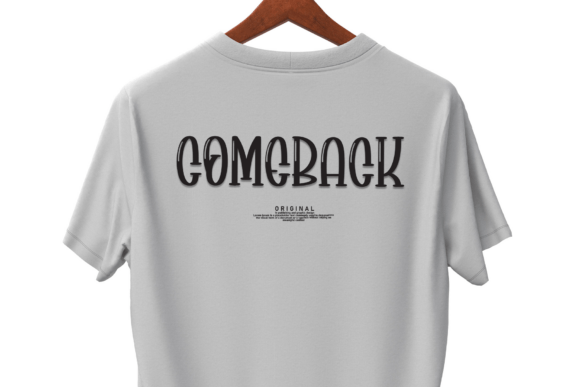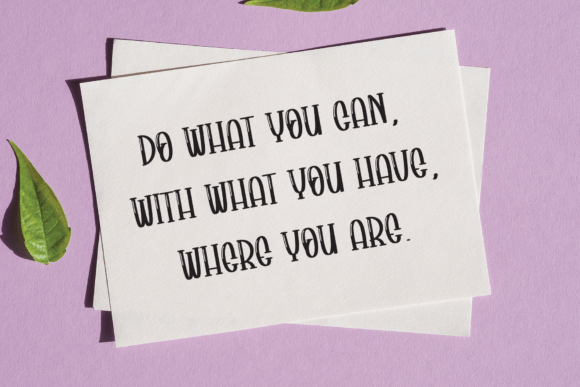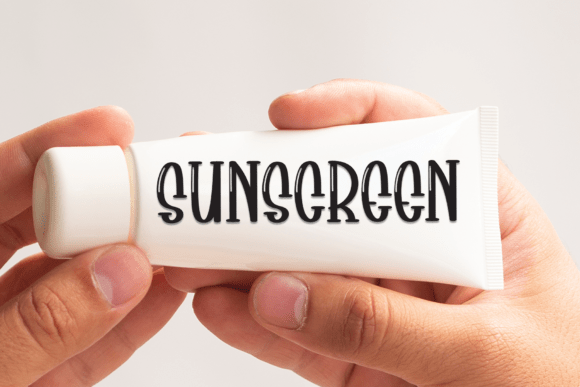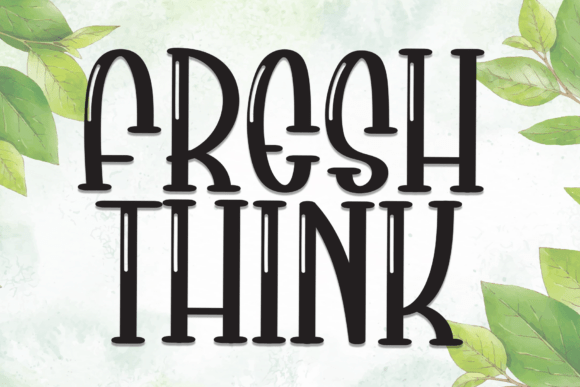
Introduction to Fresh Think Font
Welcome to your new go-to typography wonder – a charming, gentle handwritten display font that simply exudes sweetness and amicability.
Ideal for scribing soulful wedding invitations or crafting heartwarming cards, this playful font breathes an air of fun on any design it graces, imbuing it with a touch of whimsical charm Adorn your creations with this delightful font and let the magic of its friendly aesthetics create unforgettable impressions.